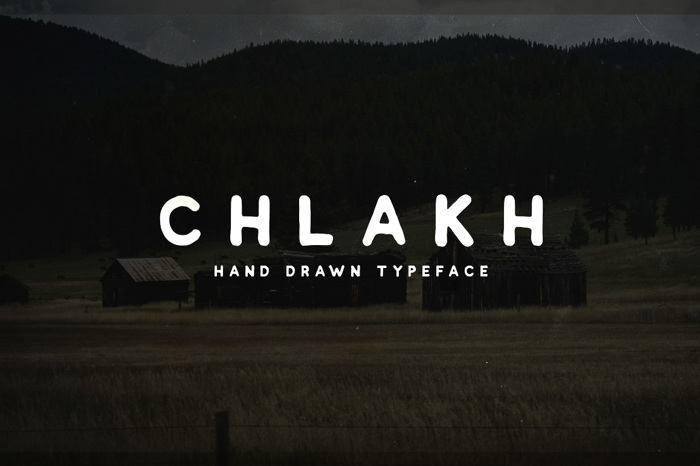
Chlakh Font
Chlakh - hand drawn retro inspired typeface.
It is perfect for creating retro logos, badges, labels. However, the use of this font is not limited to just logos. It's also suitable for t-shirt prints, food packaging, business cards, flyers, posters, ads, restaurant menus, signs, typography design, quotes and any graphic design.